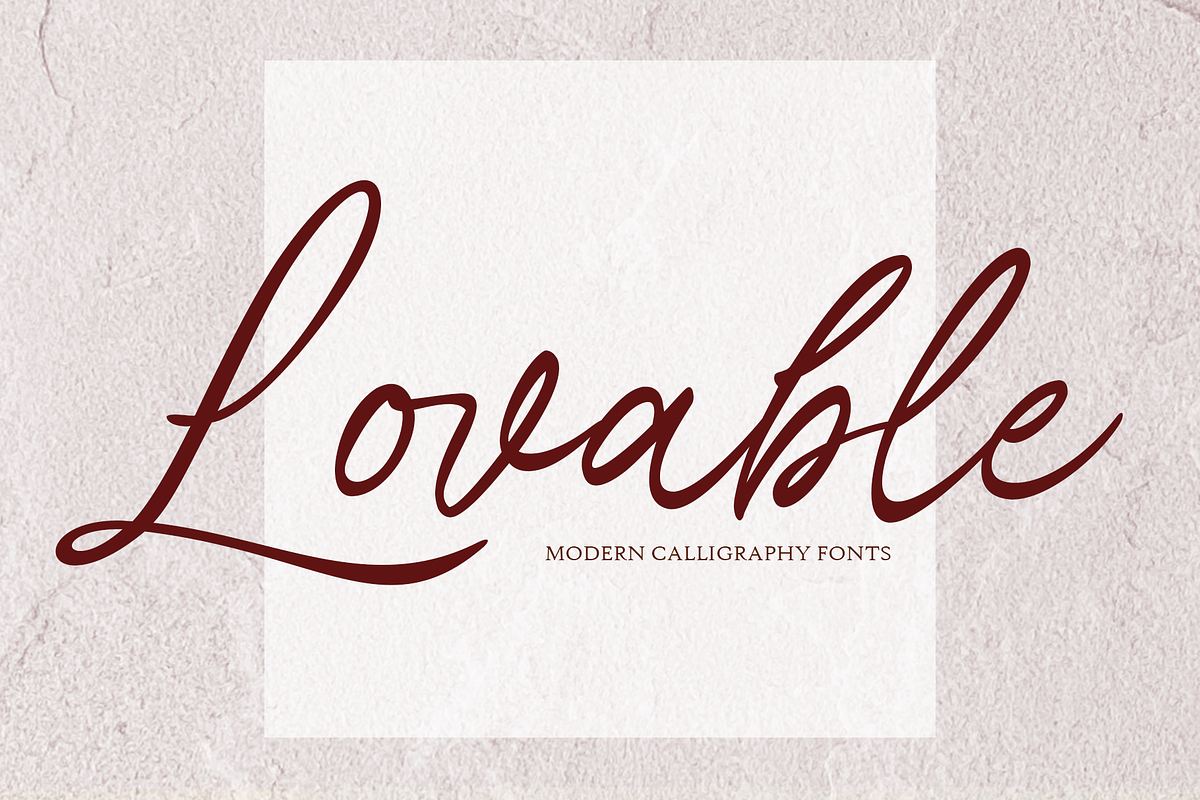
Lovable Script Font Free Download is a charming and elegant handwritten script typeface that exudes warmth and affection. With its fluid curves, smooth strokes, and friendly style, this font is perfect for creating romantic invitations, wedding stationery, branding, greeting cards, and other heartfelt projects. It brings a personal, handwritten touch to your typography.
Using the Lovable Script Font Free Download adds a soft, playful feel to your designs. Whether you're working on a love-themed logo, crafting beautiful wedding invitations, or designing content that needs to evoke emotions, this font delivers a romantic, personable vibe that speaks to the heart.